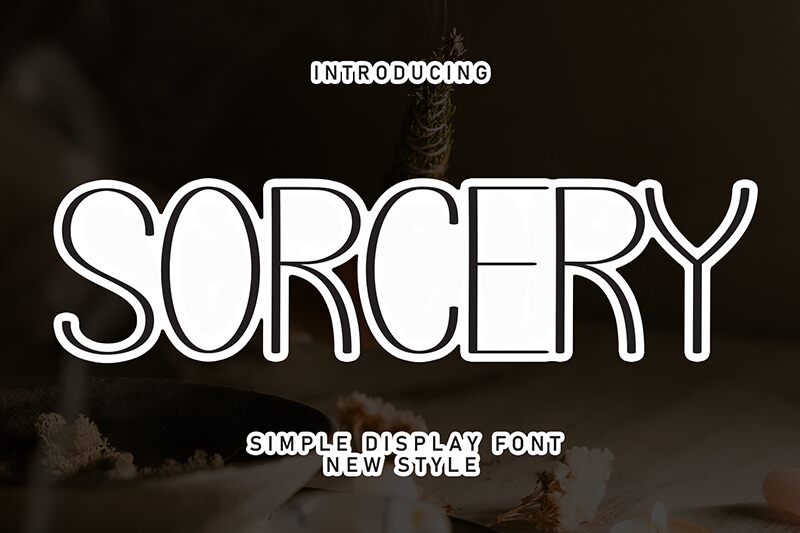
Sorcery
Sorcery font by Andi Moz has a sleek and sophisticated allure that gives it an artistic feel, derived from a minimalist approach to character design. This handwritten light-font style is structurally modern, boasts flowing lines and thin strokes that make it aesthetically refined yet readable in every form.